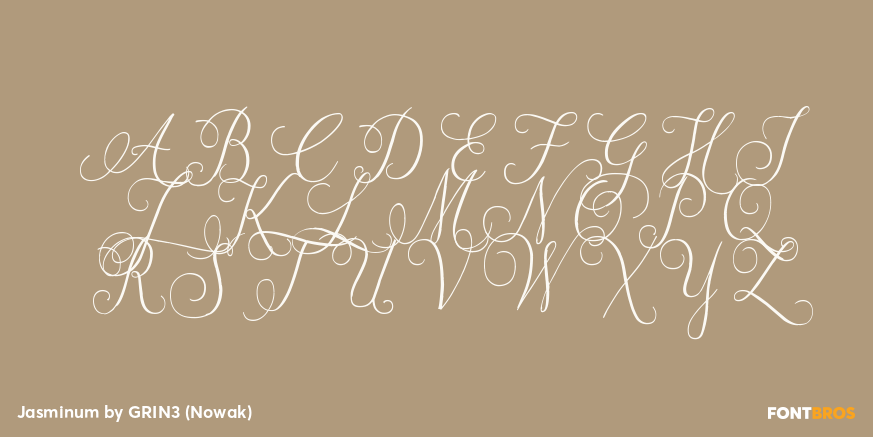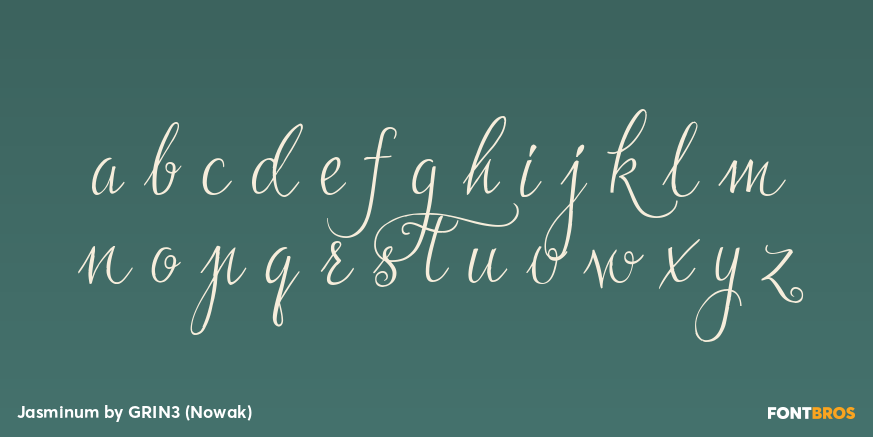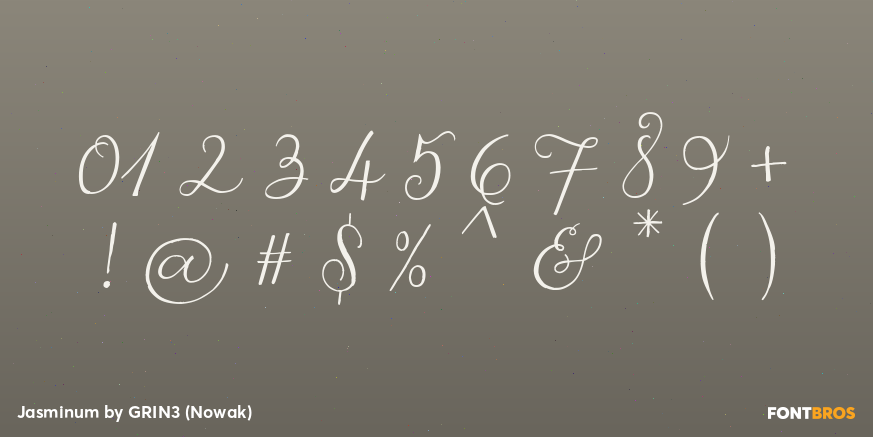
Jasminum
Font Family by GRIN3 (Nowak)
Jasminum is a handwritten, fully connected script with ligatures to help with flow and readability. It can be used for invitations, greeting cards, posters, advertising, weddings, books, menus etc.
Jasminum contains over 700 glyphs. Each letter has three variations. To get the alternate glyph just add "+" or "=" before the letter in any OpenType savvy application or manually select the characters from Glyph Palette.
Language support includes Western, Central and Eastern European character sets, as well as Baltic and Turkish languages.